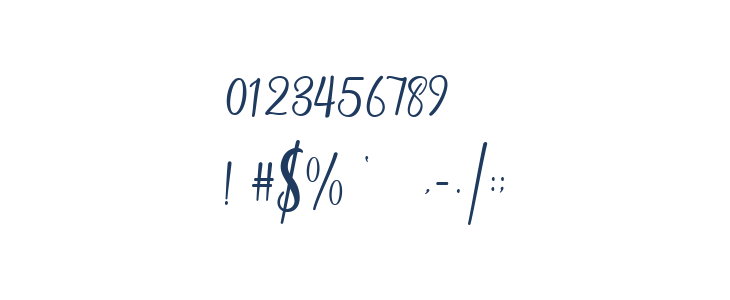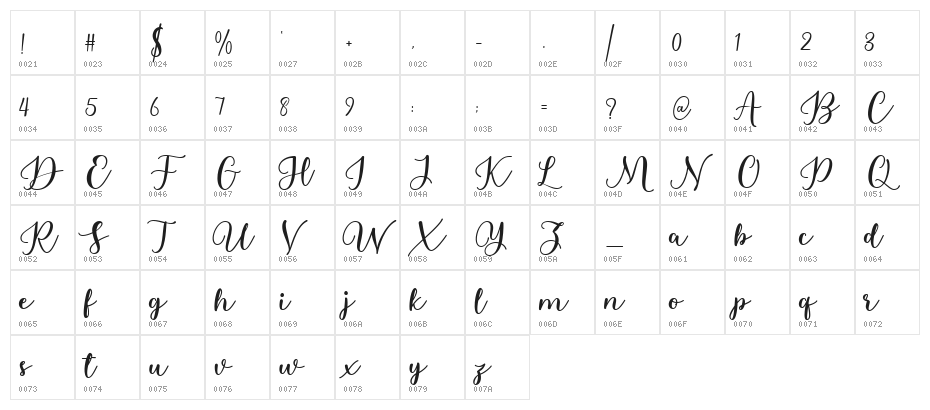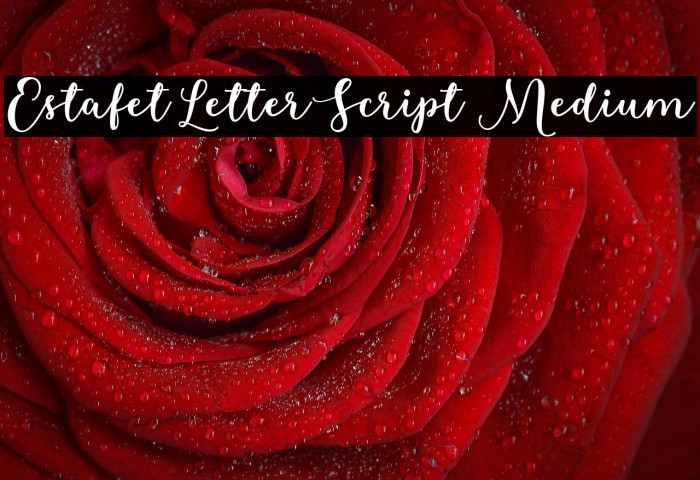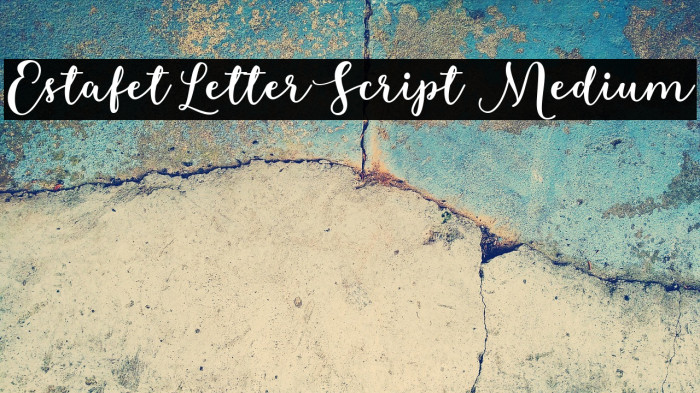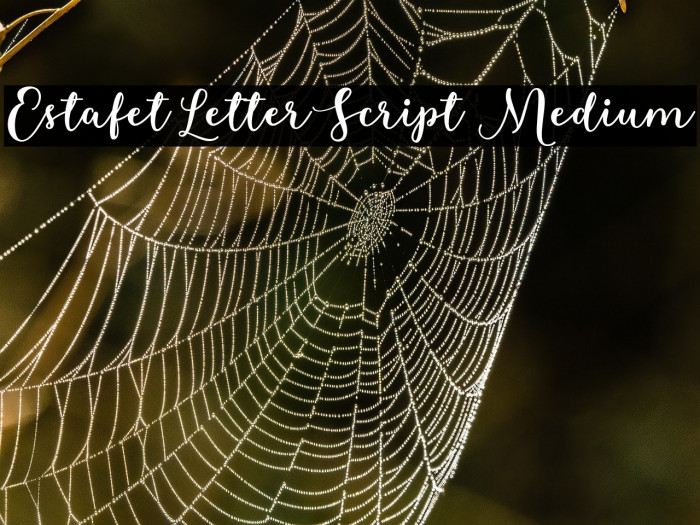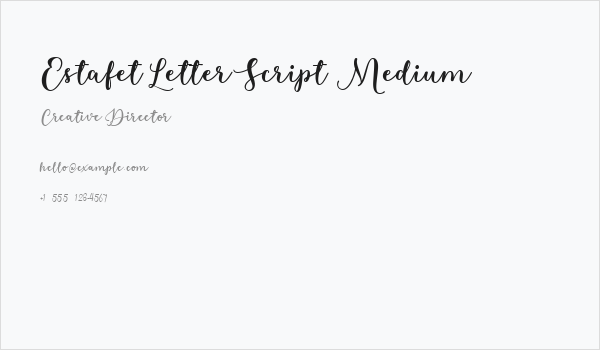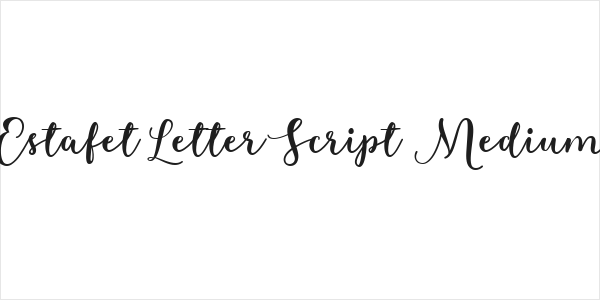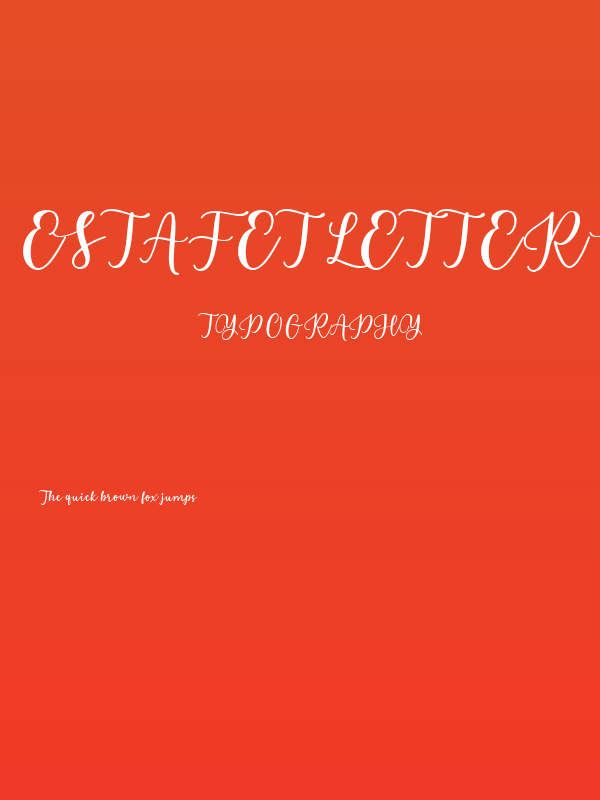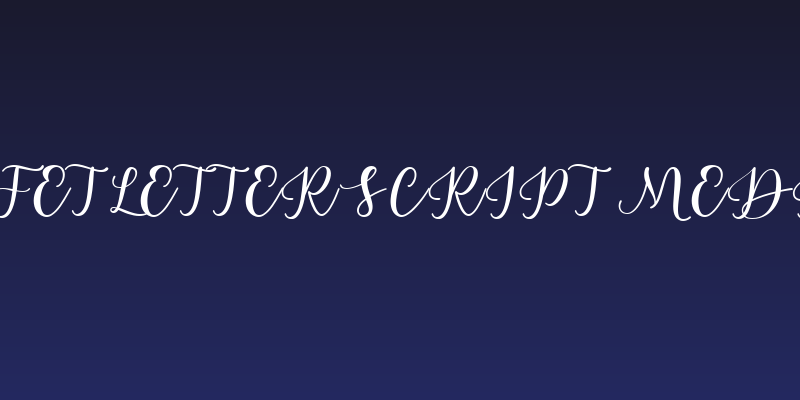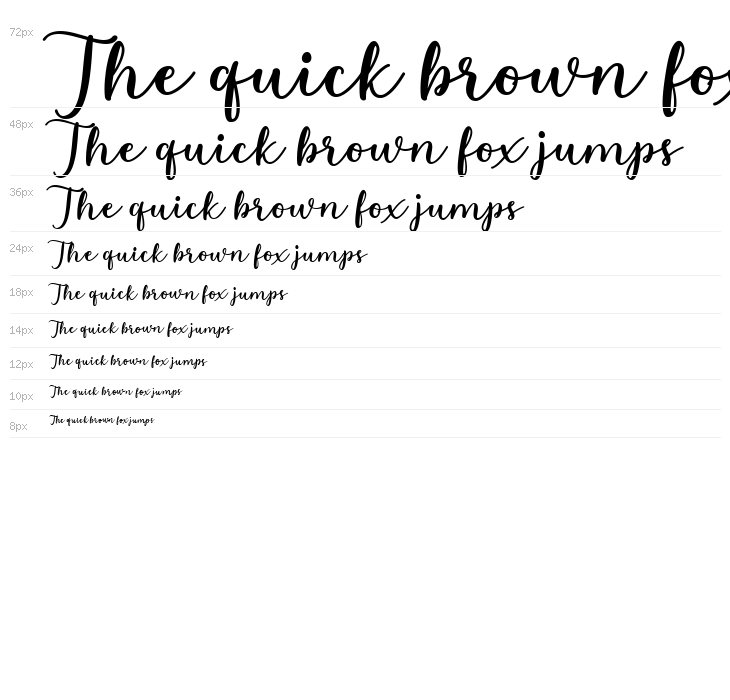
Estafet Letter Script Medium Font
Estafet Letter Script Medium Description
This font features a flowing, elegant script style with a medium weight that balances readability and decorative appeal. The uppercase letters exhibit graceful loops and curves, while the lowercase characters maintain a smooth, connected flow. The numerals are consistent with the script style, offering a cohesive look across all characters. Special characters are designed with the same attention to detail, ensuring they blend seamlessly with the rest of the font. The overall design exudes a sense of sophistication and charm, making it suitable for a variety of creative applications.
ContrastMedium
Overall StyleElegant, Decorative
Use CaseLogos, Invitations, Decorative text
Proposed ProjectsIdeal for wedding invitations, greeting cards, branding, and elegant packaging designs.